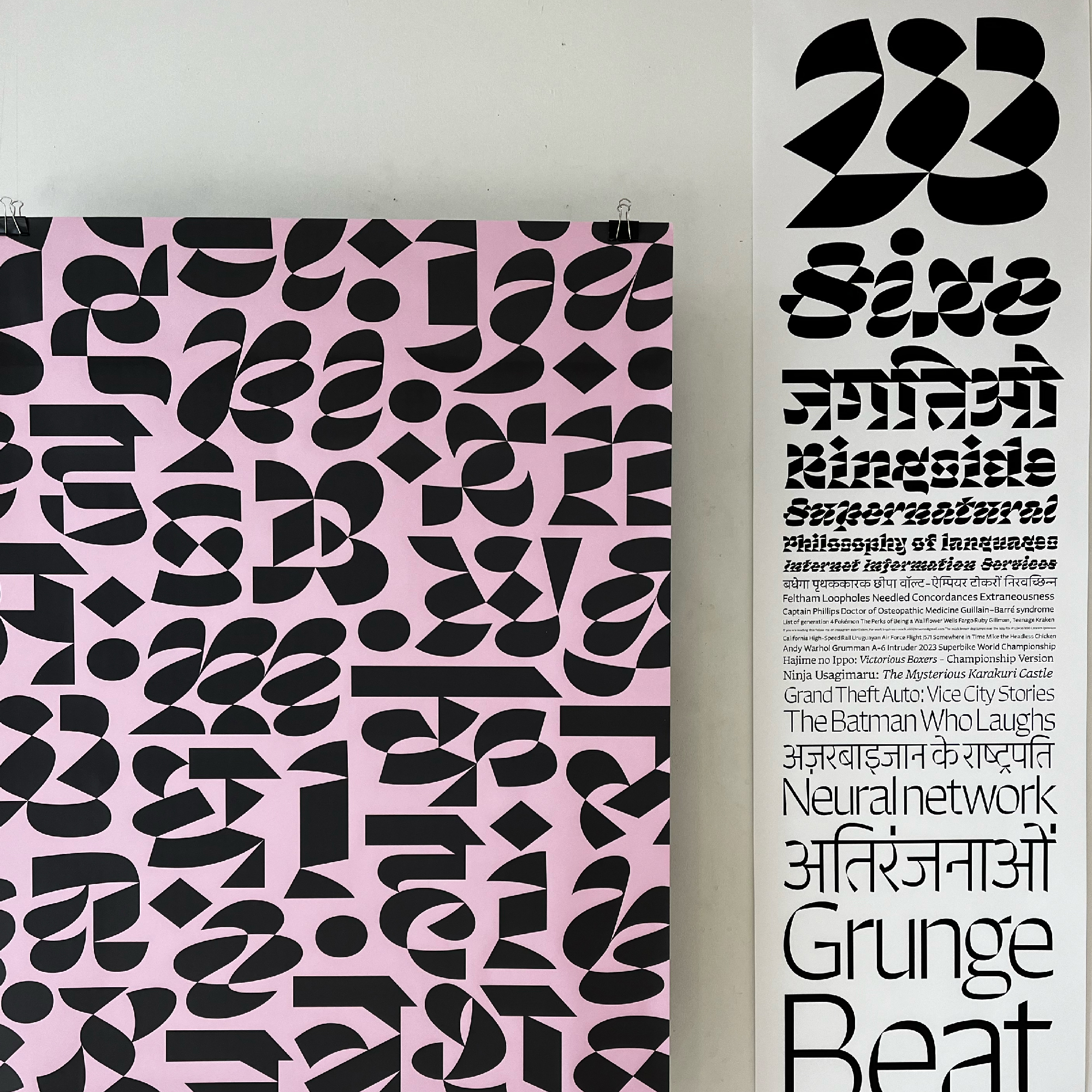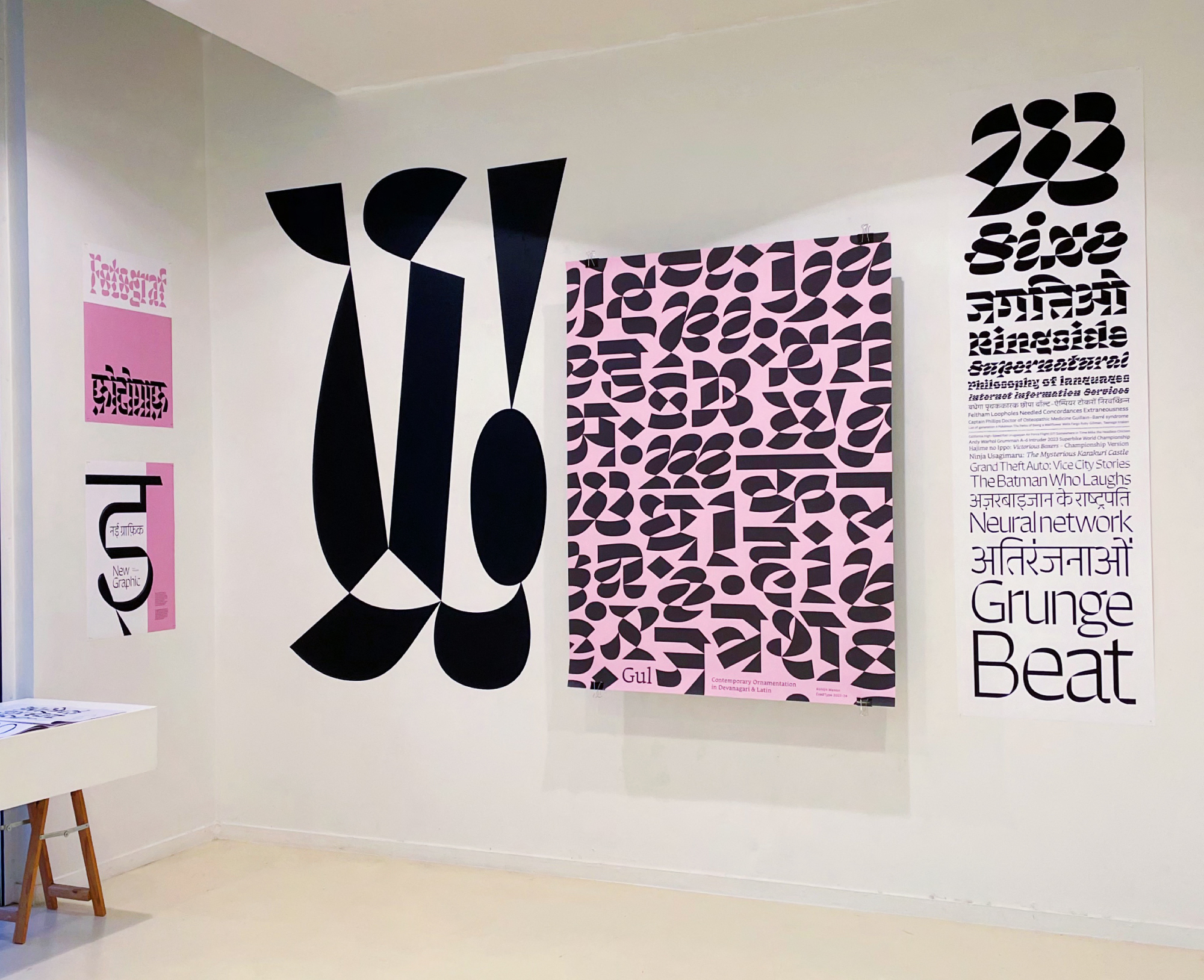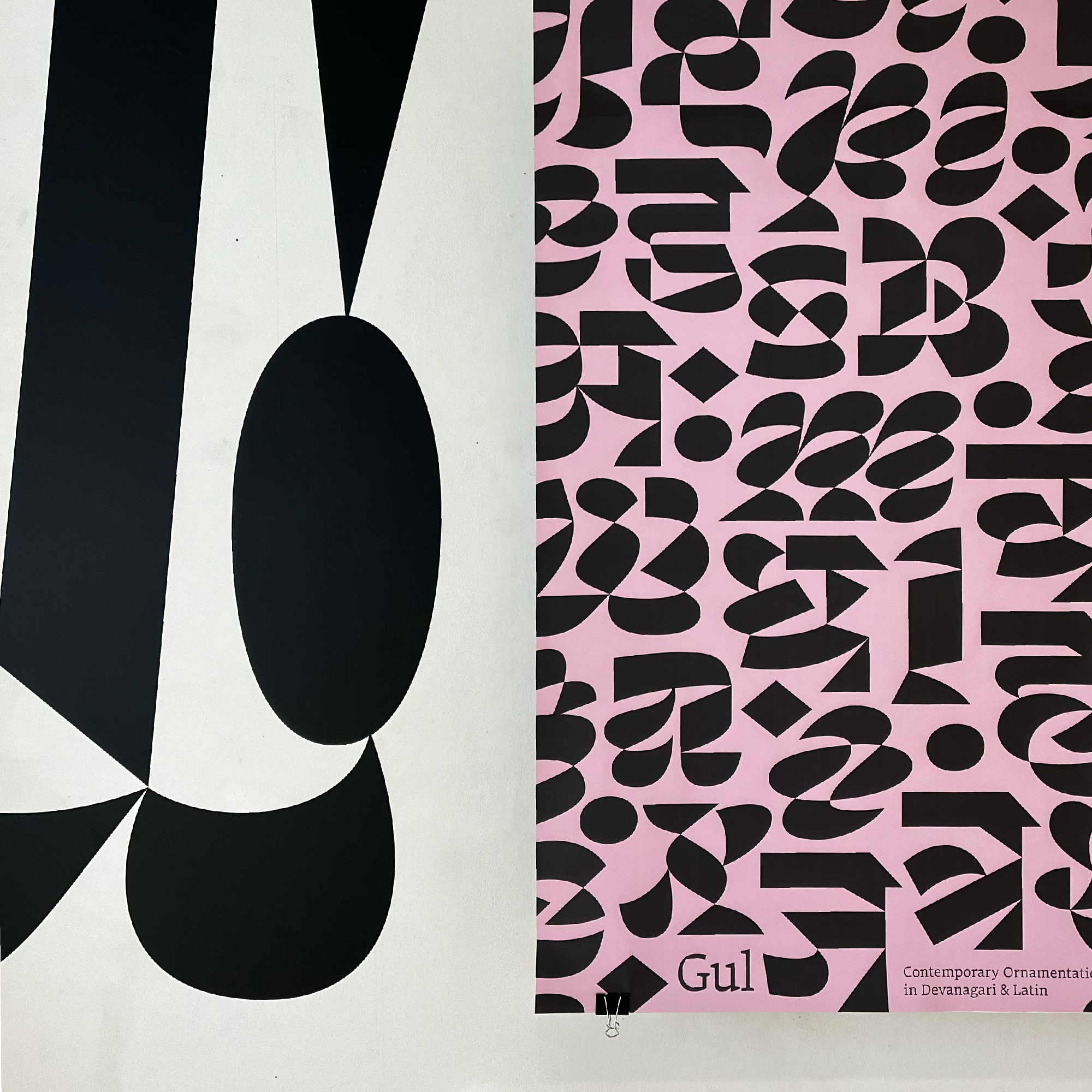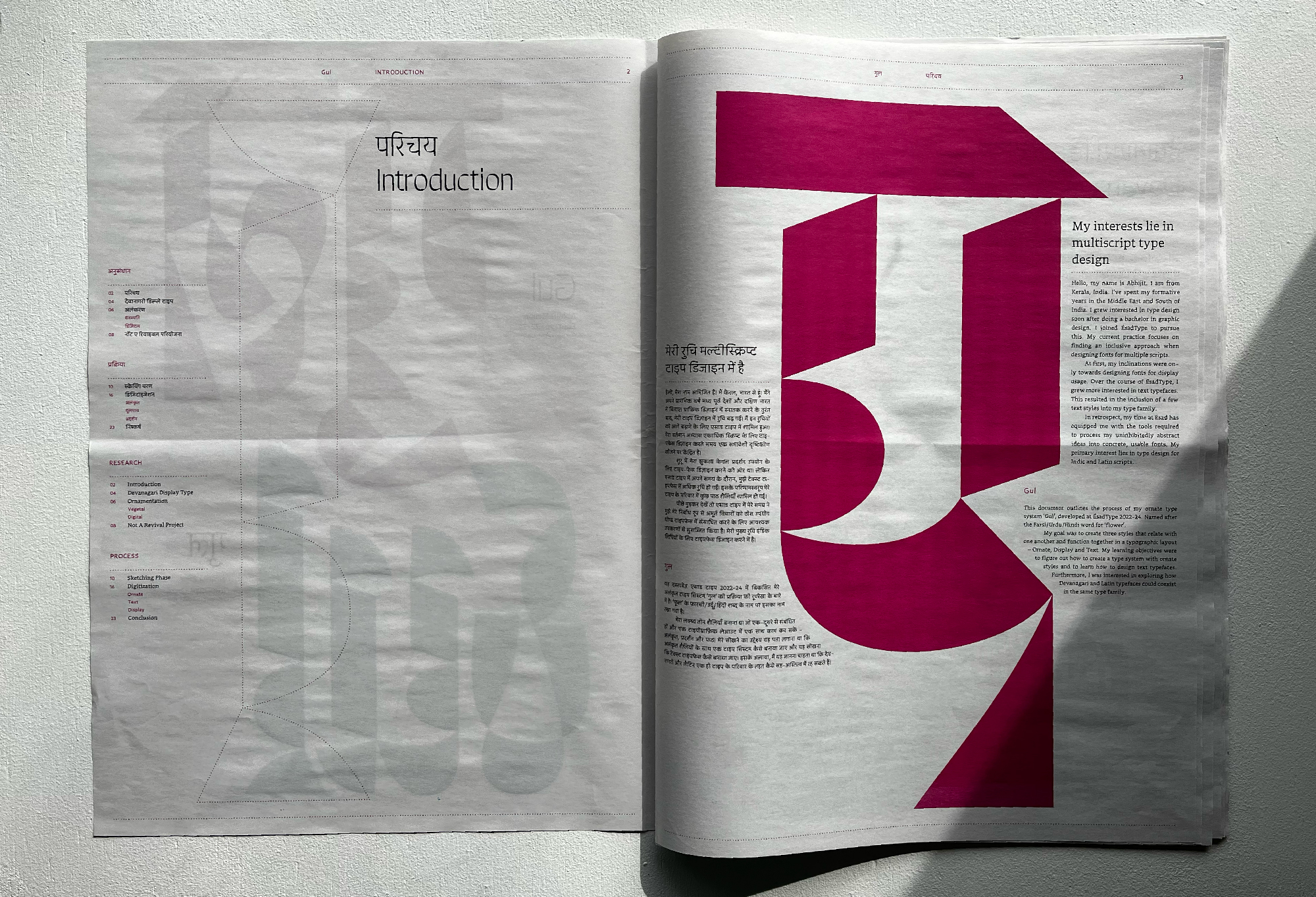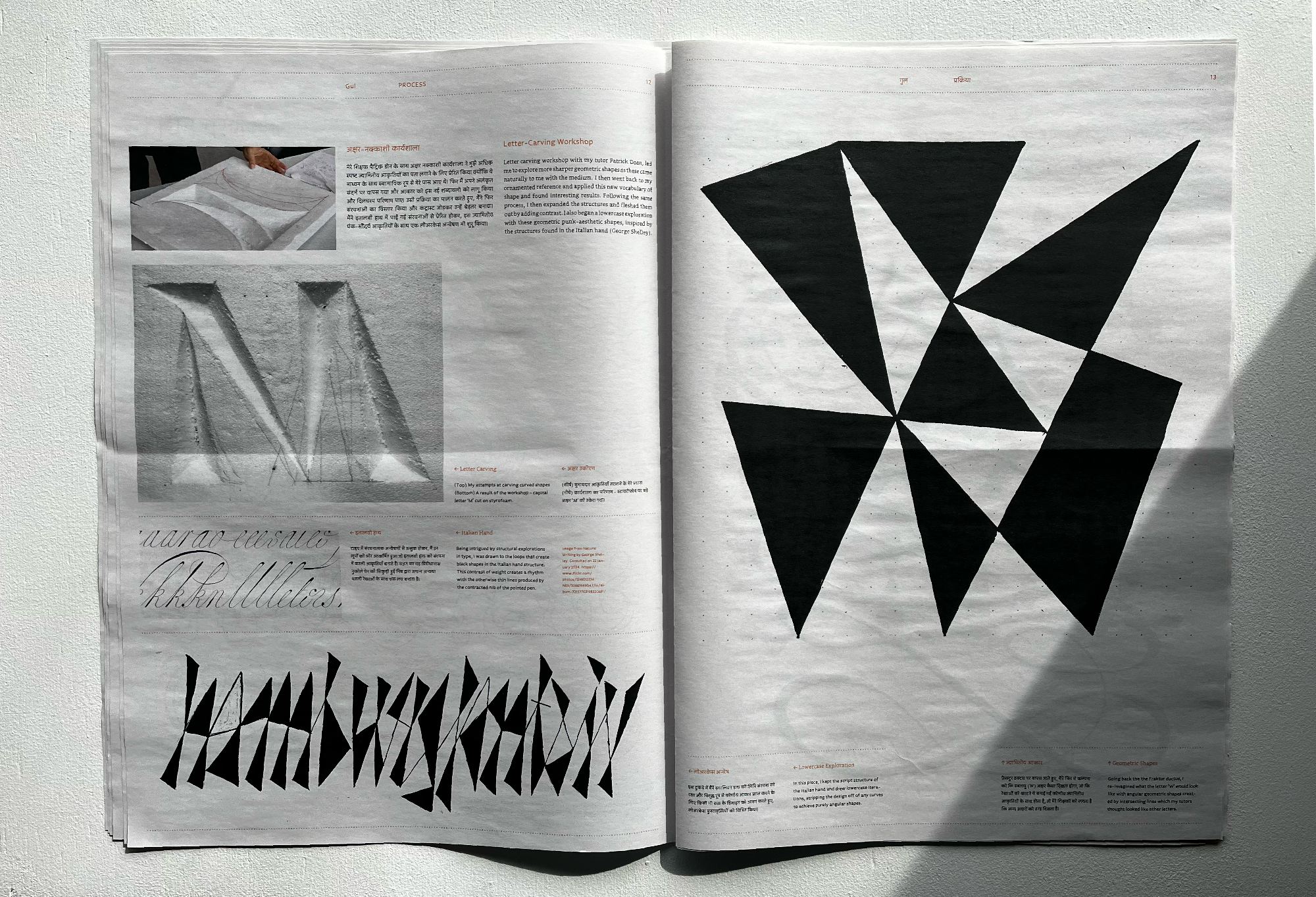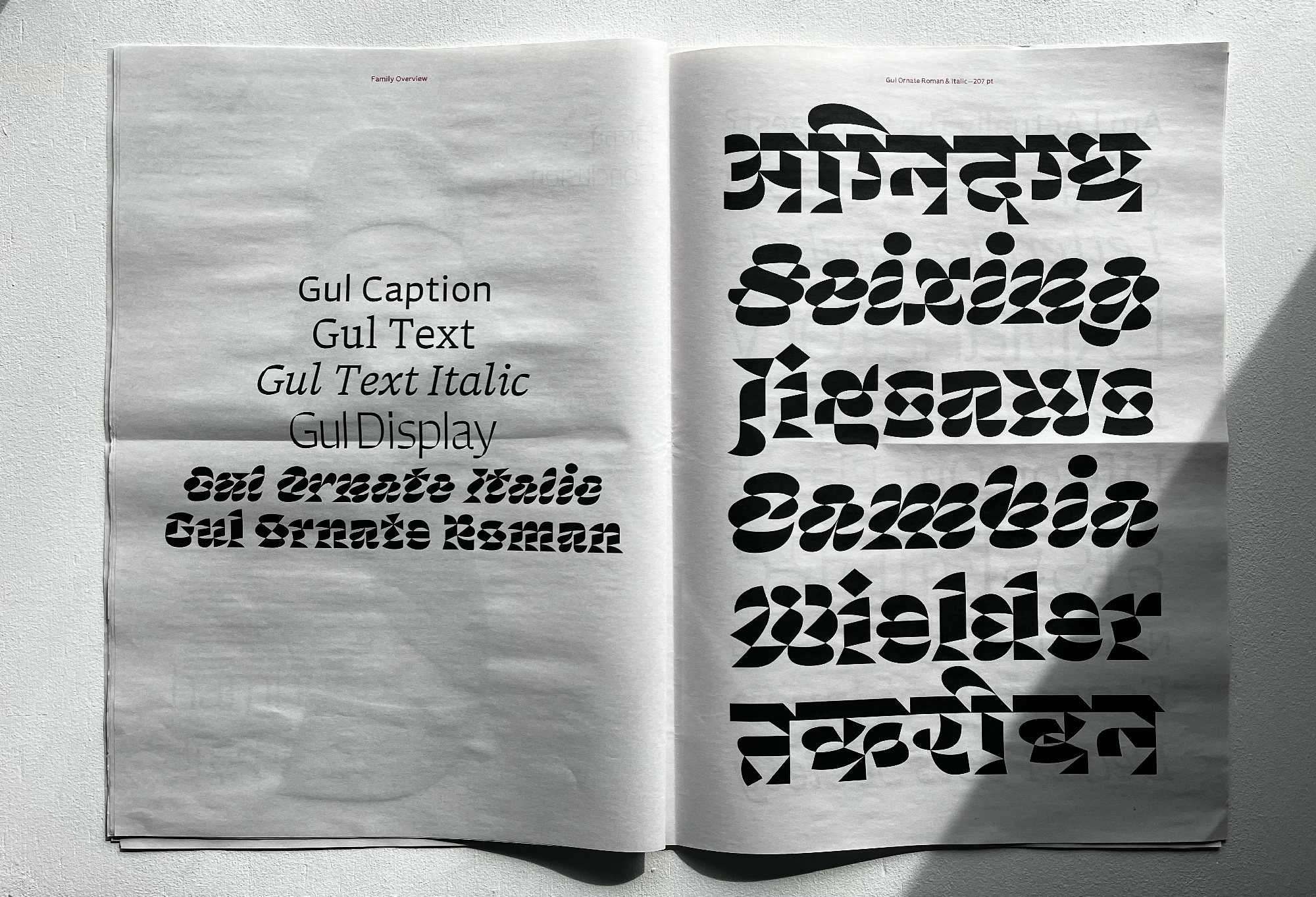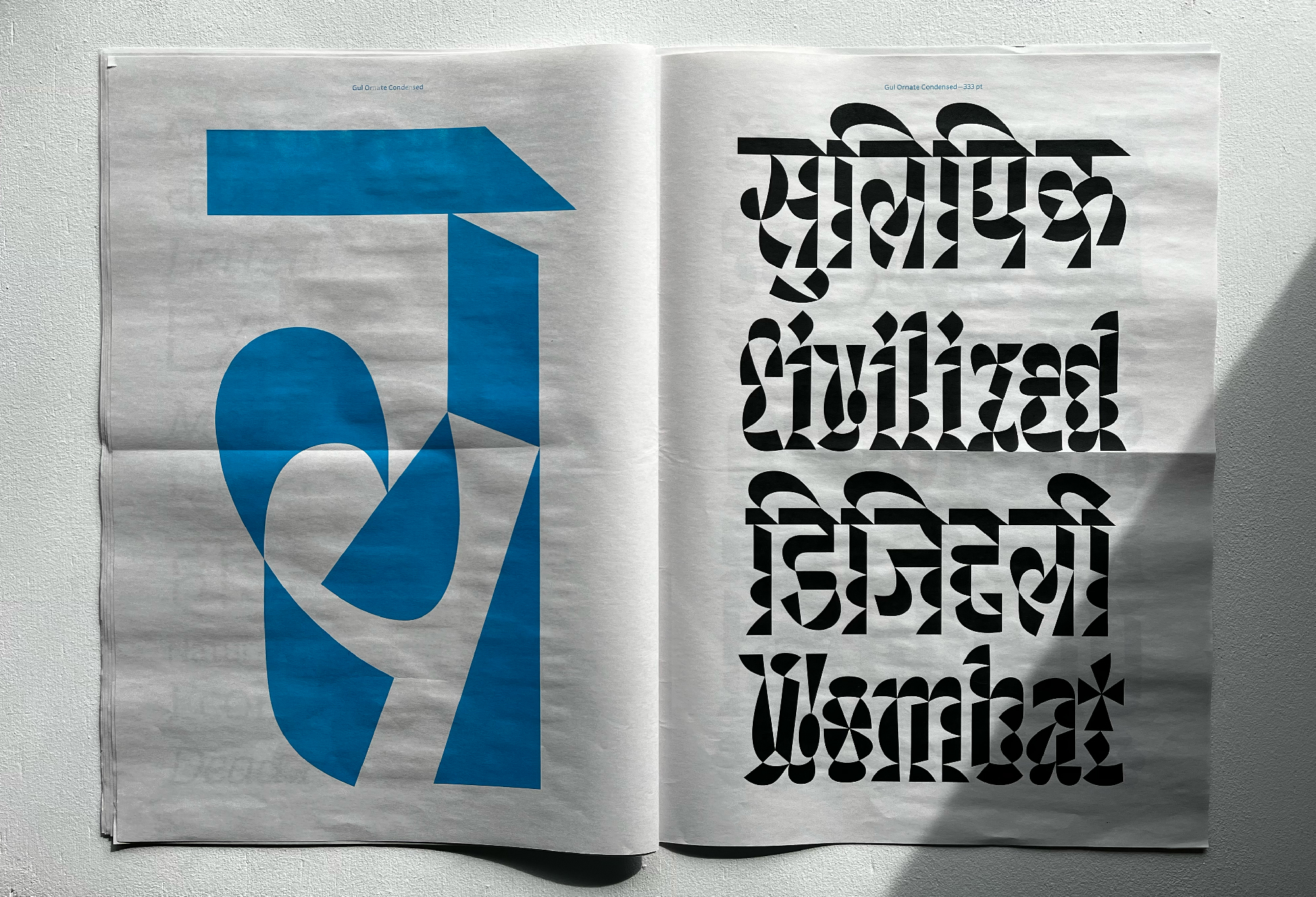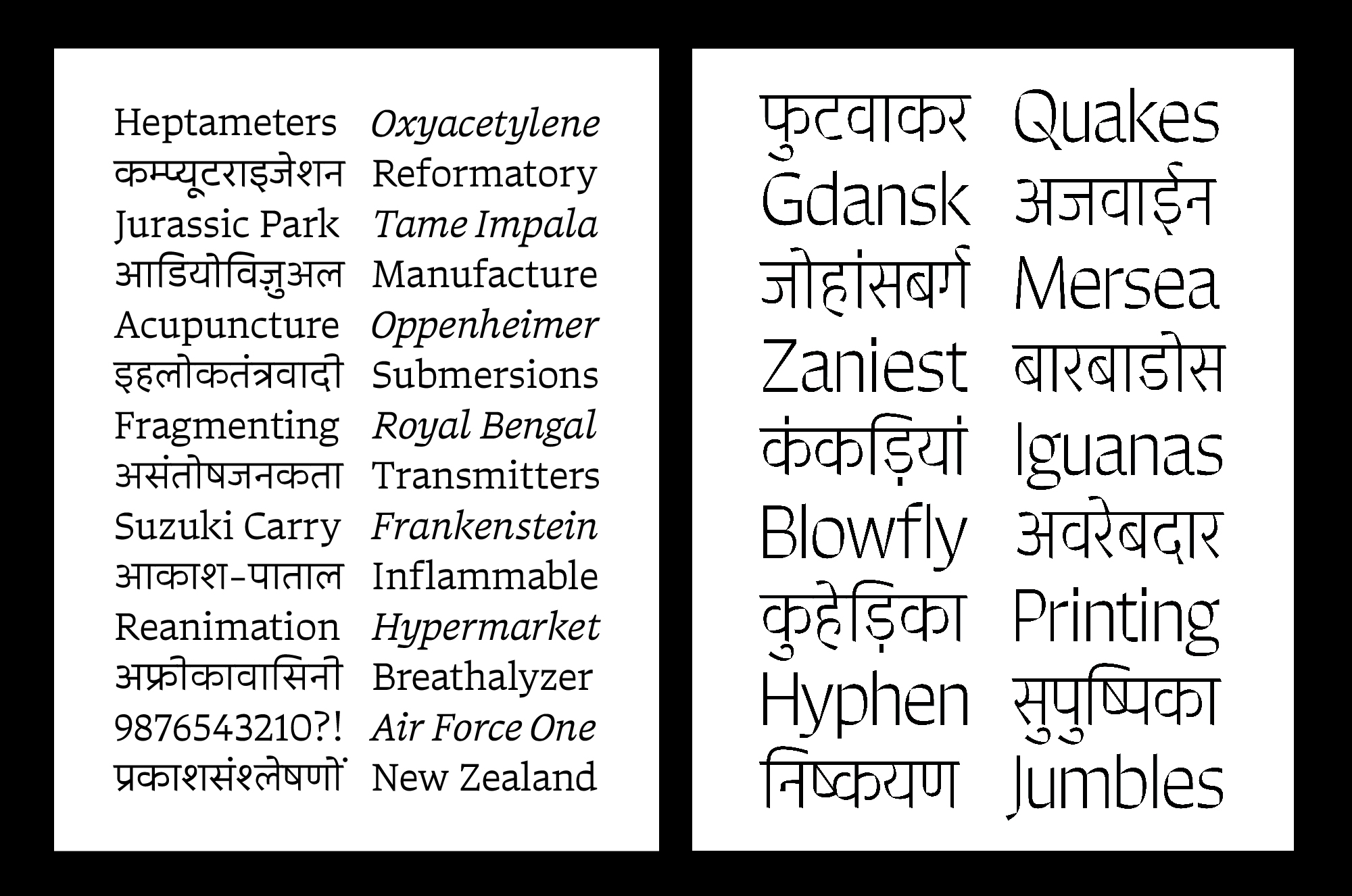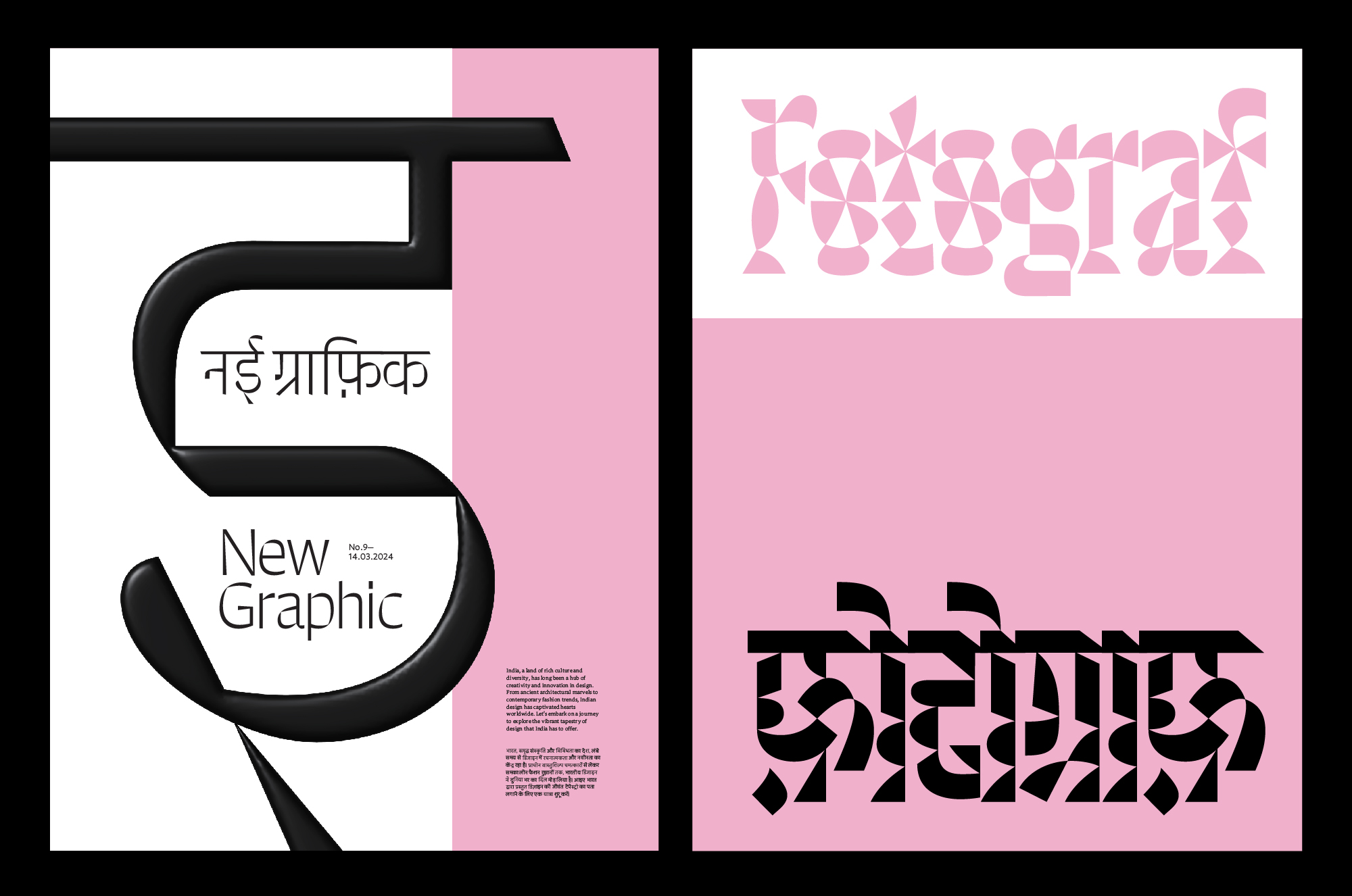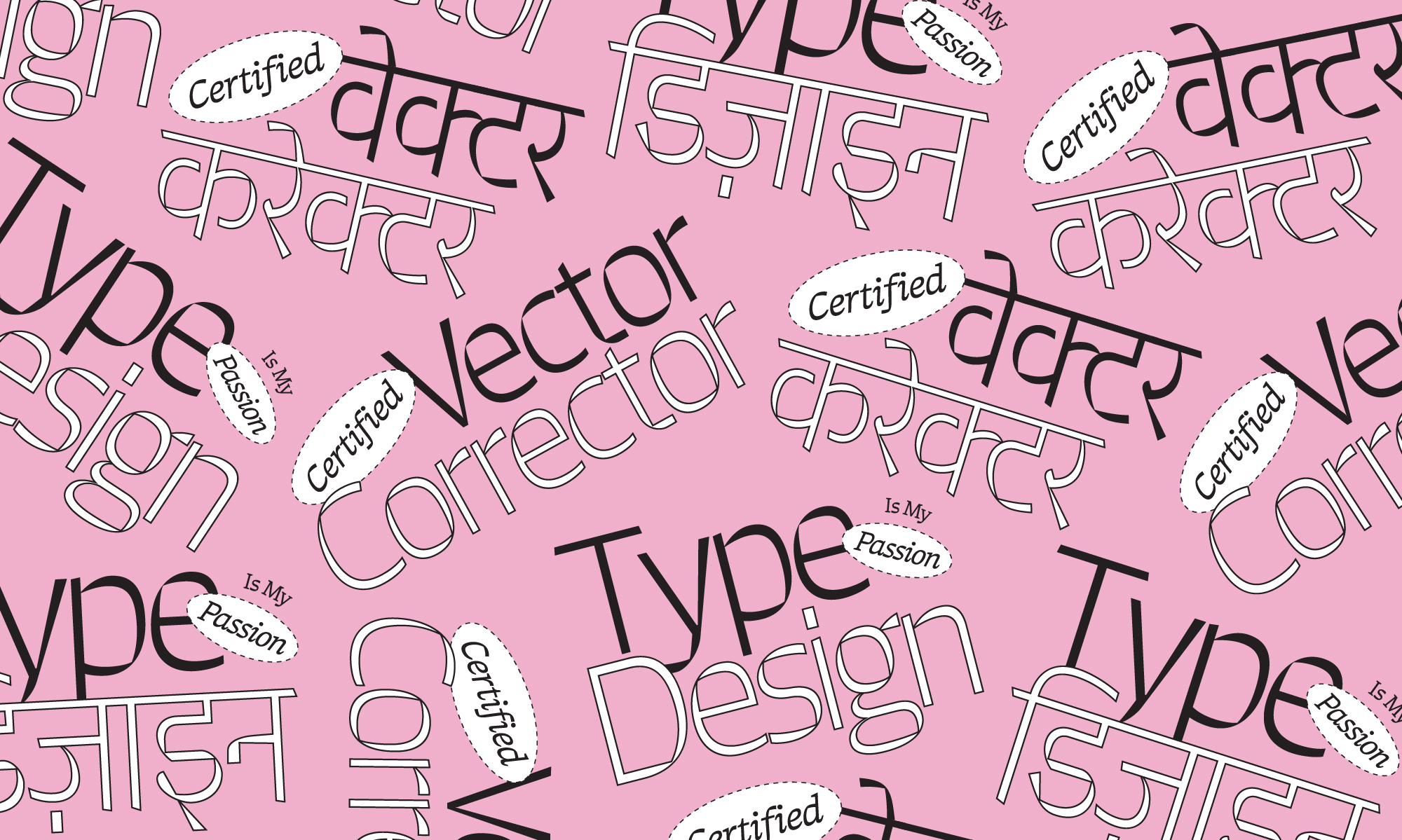
‘Gul’ is an ornate type system incorporating Devanagari and Latin scripts. It takes a contemporary approach to ornamentation in type design. The Display and Text styles are derived from the Ornate styles. This type system is named after the Farsi/Urdu/Hindi word for ‘flower’. The design space and text styles are inspired by the newspaper medium. There are three ornate styles — Roman, Italic, and Condensed. These are a personal take on contemporary ornamentation. The text styles comprise of a serifed Text, its Italic companion, and a sans-serif Caption style. The final style is a high contrast Display — derived from the Text.